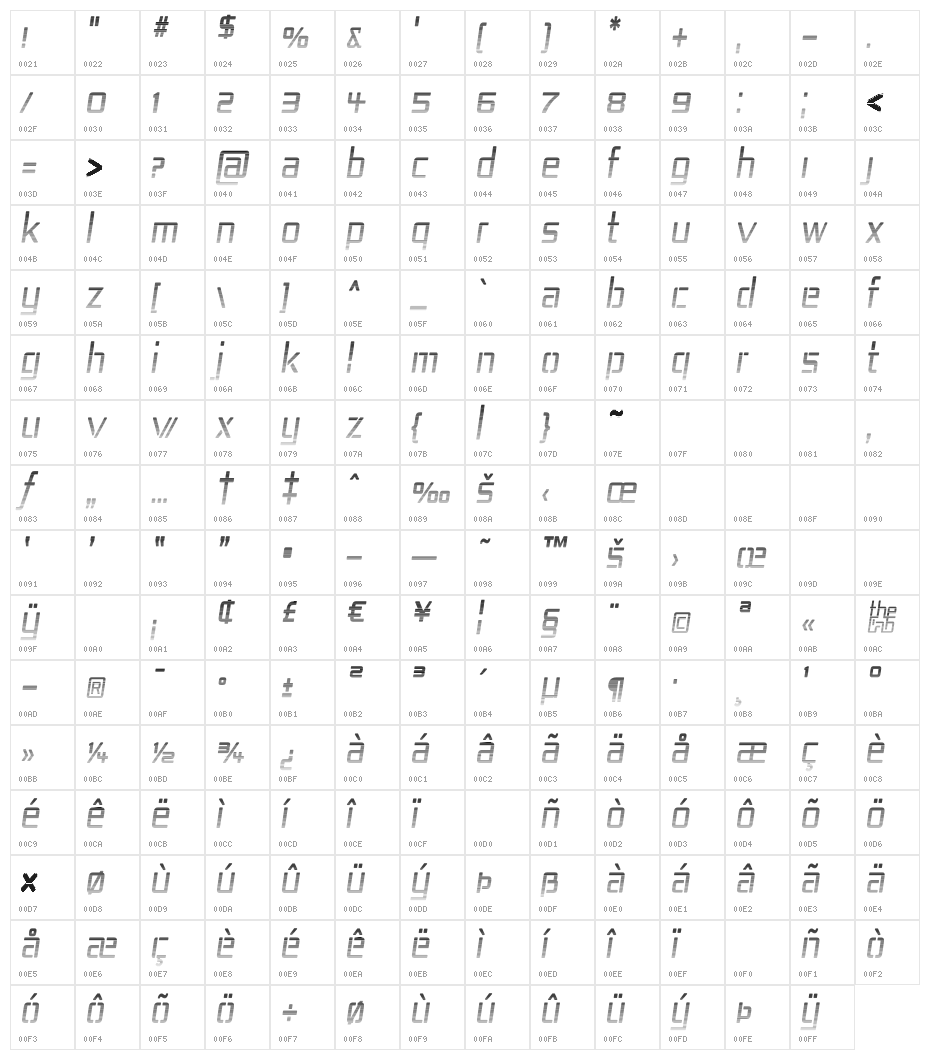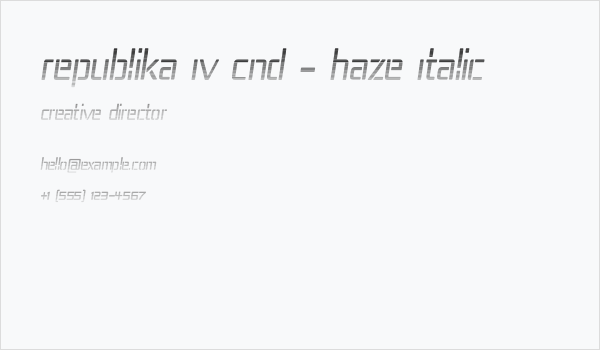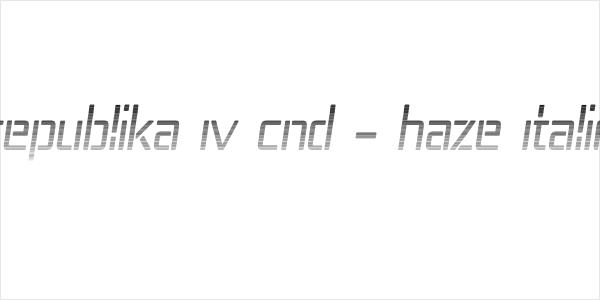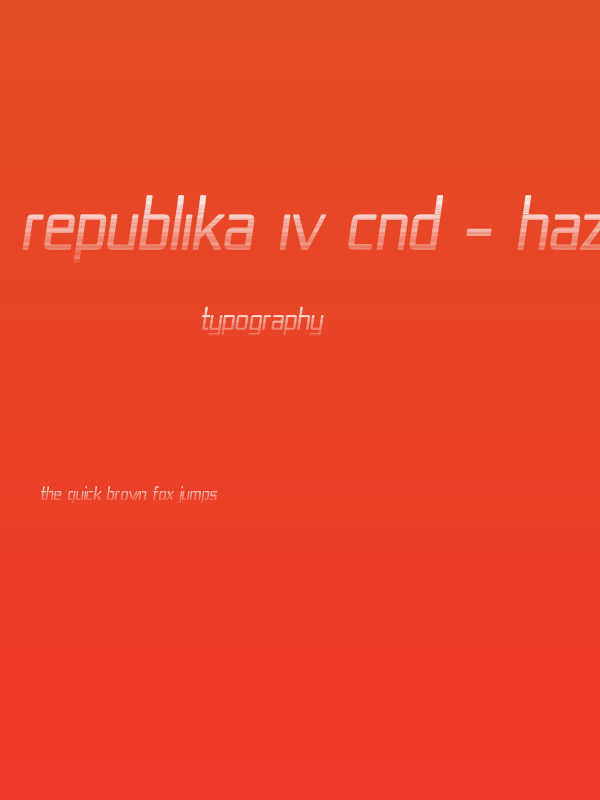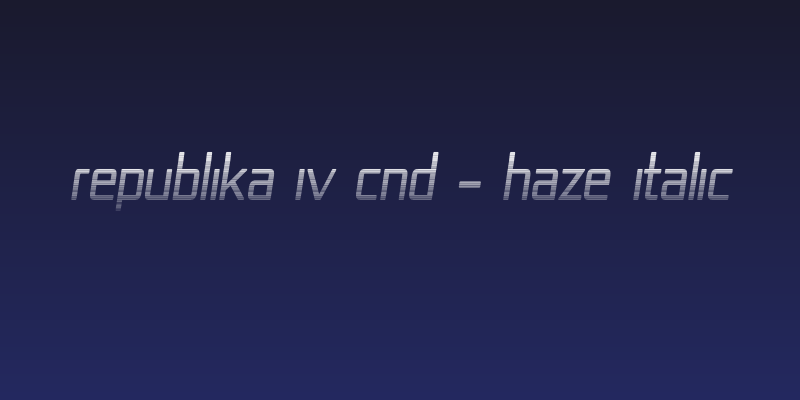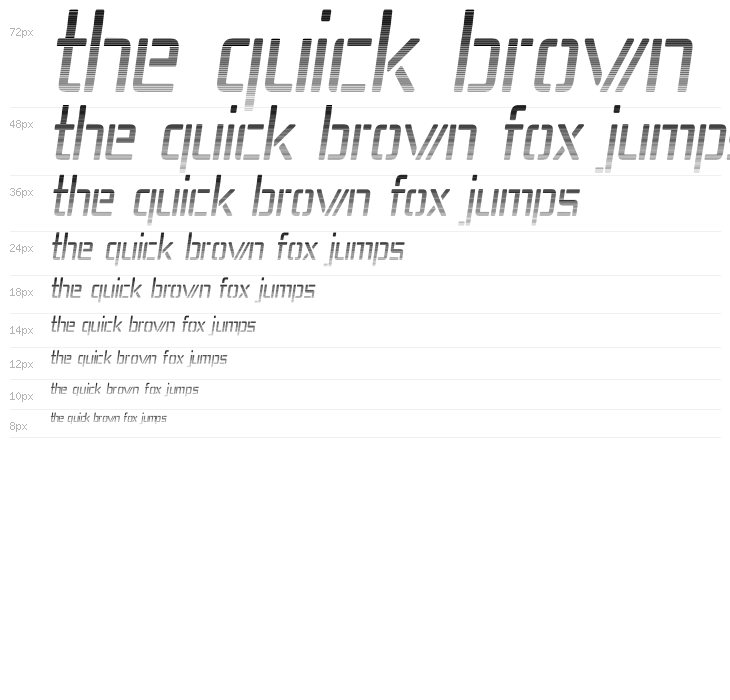
Republika IV Cnd - Haze Italic Font
Republika IV Cnd - Haze Italic Description
This font features a modern and sleek design with a condensed structure, giving it a streamlined and futuristic appearance. The italic style adds a dynamic and forward-leaning aspect, enhancing its contemporary feel. The characters are constructed with a consistent stroke weight, providing a uniform look across all letters and numbers. The font's geometric shapes and clean lines make it suitable for digital and print media, where a modern aesthetic is desired. The spacing between characters is tight, contributing to its compact and efficient design. This font is ideal for projects that require a modern and professional touch, such as tech branding, digital interfaces, and innovative product packaging.